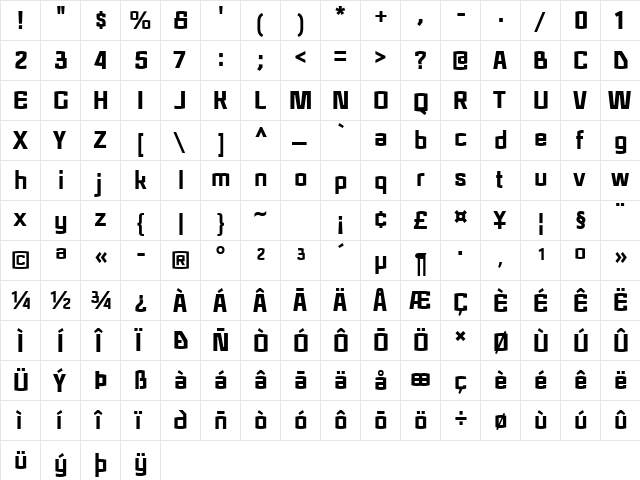
Regra Black Regular
Design Context for Regra Black Typeface
Regra Black is a composed and adaptable typeface that performs quietly and consistently across a wide range of design contexts.
Pro Tip: Pair Regra Black with a font of contrasting weight or personality to build a more expressive typographic hierarchy.